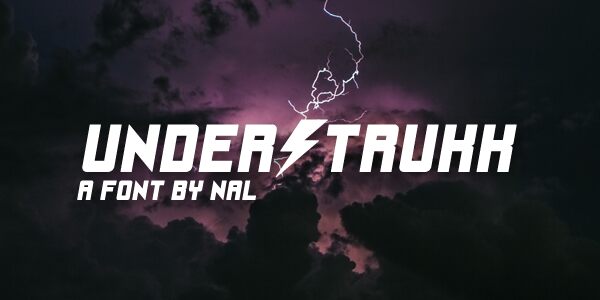
Under Strukk by Andrew McCluskey is a free techno display font built around massive, squared forms and an engineered silhouette. The broad capitals look dense, tense, and mechanical.
Its rounded outer corners and sharp diagonal cuts can suit esports branding and electronic music posters as convincingly as futuristic product packaging. In editorial design, the notched joins can turn a technology feature or gaming magazine cover into a graphic panel rather than ordinary headline text.